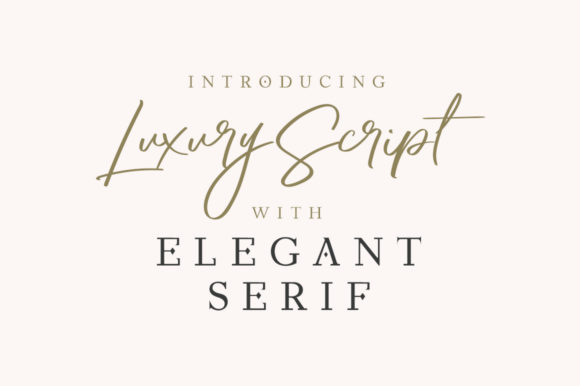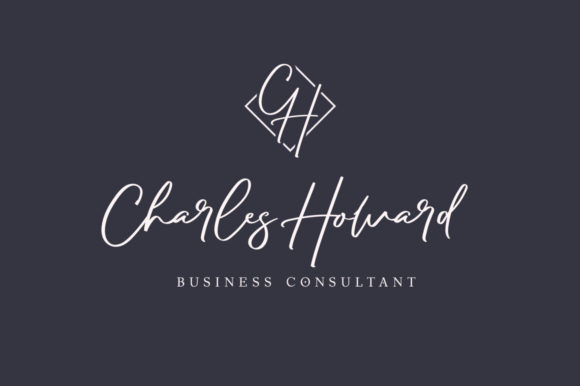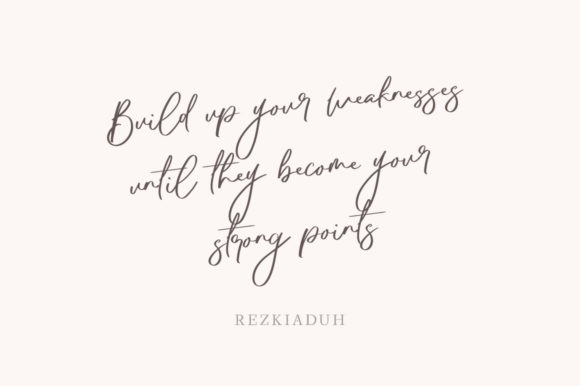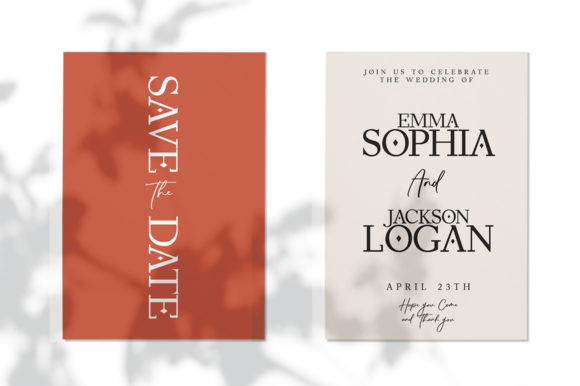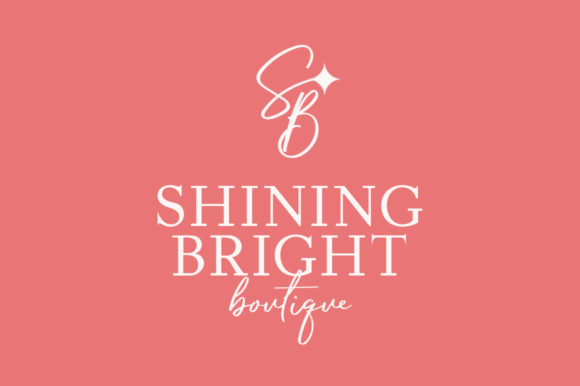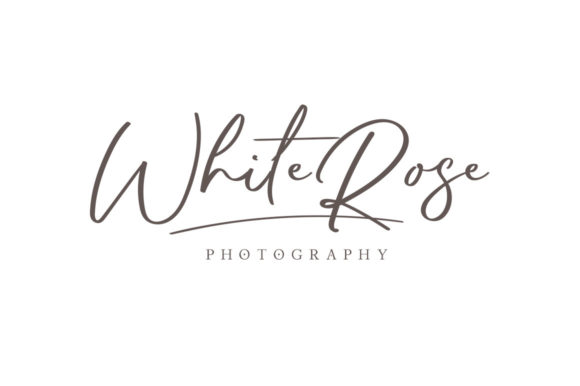
Unleash the Elegance: Discover the Beauty of Black Pearl Font
Are you a designer or crafter looking for a font that exudes romance and sophistication? Look no further than the stunning Black Pearl Font. This lovely duo font, consisting of a serif and script font, is sure to elevate your next project with its elegant and versatile charm.
The Versatility of Black Pearl Font
One of the standout features of Black Pearl Font is its incredible versatility. With its range of applications, you can use it to create beautiful greeting cards, eye-catching headlines, and so much more. Whether you’re working on a romantic invitation, a wedding announcement, or a simple yet elegant logo, Black Pearl Font is the perfect choice.
A Romantic Feel at Your Fingertips
Black Pearl Font is designed to add a touch of romance to your projects. Its beautiful script font, complete with swashes and glyphs, will transport your designs to a world of elegance and sophistication. Imagine creating a stunning wedding invitation or a lovely Valentine’s Day card with this gorgeous font. The possibilities are endless, and the results are sure to be breathtaking.
Black Pearl Font is a must-have for designers and crafters who want to add a touch of elegance to their work. Whether you’re creating digital designs or handmade crafts, this font is sure to inspire your creativity. Use it to create stunning graphics, beautiful stationery, or even handmade cards – the possibilities are endless.
Key Features of Black Pearl Font
- Lovely duo font consisting of a serif and script font
- Versatile and suitable for a wide range of applications
- Perfect for creating romantic and elegant designs
- Suitable for designers and crafters
Tips for Using Black Pearl Font
To get the most out of Black Pearl Font, here are a few tips to keep in mind:
- Experiment with different font sizes and combinations to create visual interest
- Use the swashes and glyphs to add a touch of elegance to your designs
- Pair Black Pearl Font with other fonts to create a unique and eye-catching look
- Don’t be afraid to get creative and try new things – Black Pearl Font is designed to inspire your creativity
In conclusion, Black Pearl Font is a stunning duo font that is sure to add a touch of romance and elegance to your next project. With its versatility, PUA encoding, and beautiful design, it’s the perfect choice for designers and crafters who want to create something truly special. So why wait? Discover the beauty of Black Pearl Font today and unleash your creativity!